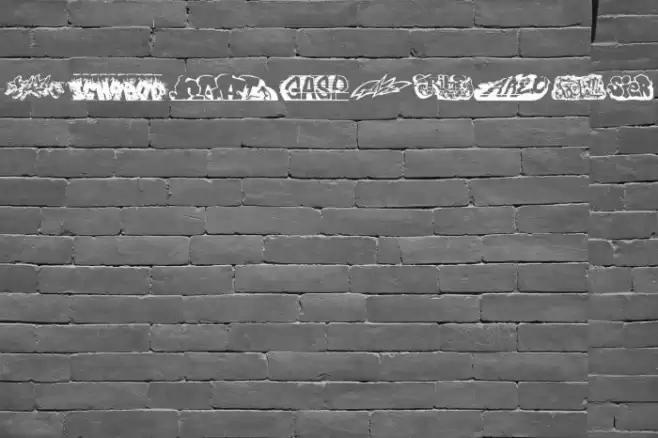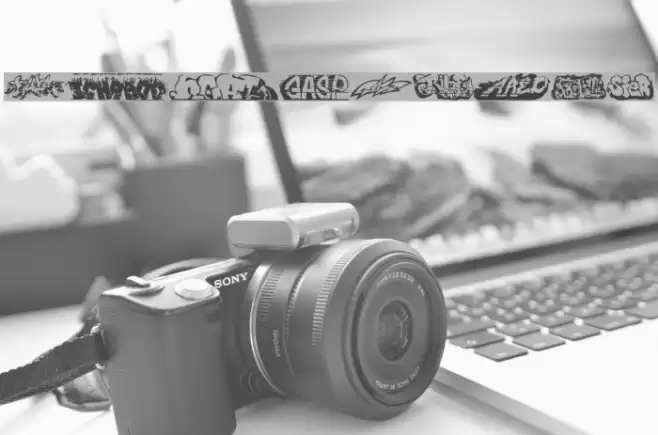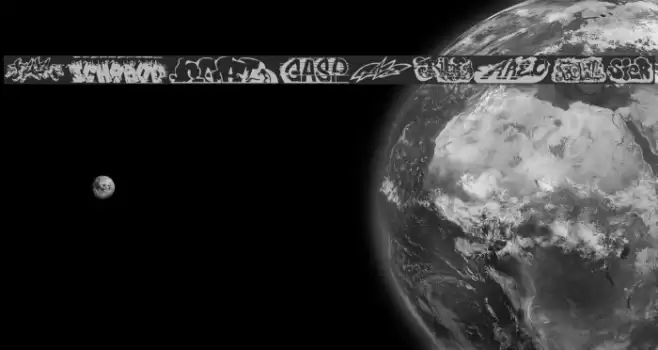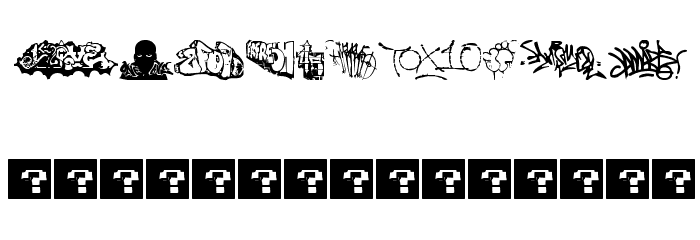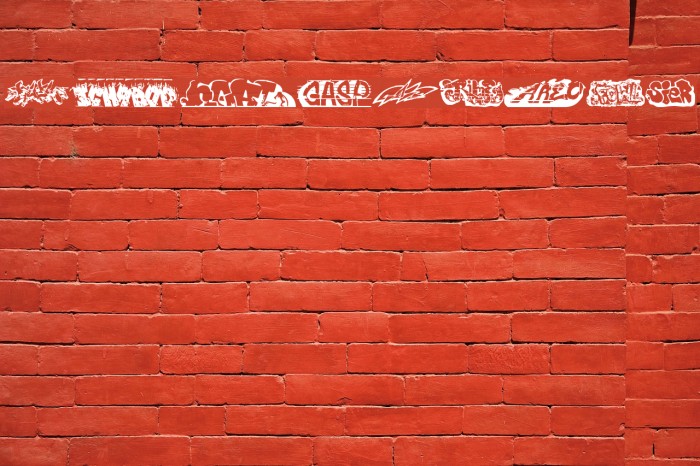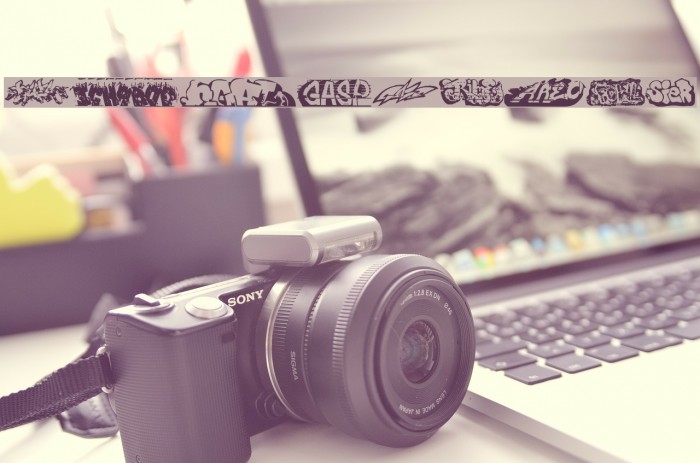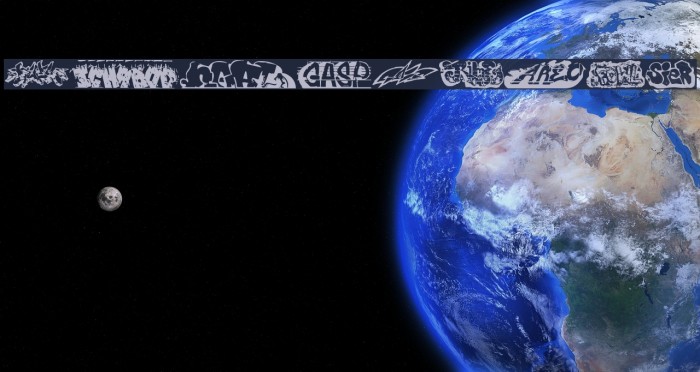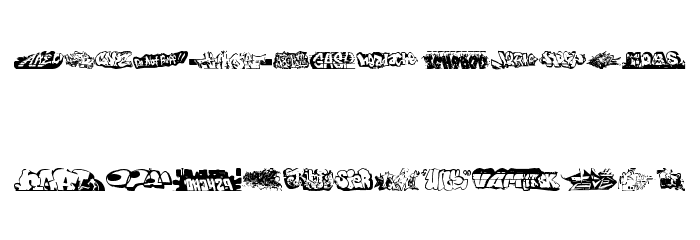
DingGrafs Font
This font is a highly stylized, graffiti-inspired typeface that captures the essence of urban street art. Each character is uniquely designed with intricate details, bold strokes, and dynamic shapes, creating a sense of movement and energy. The letters are interconnected with flowing lines and exaggerated curves, giving them a three-dimensional appearance. The font is visually striking, with a mix of sharp angles and smooth contours, making it ideal for projects that require a bold and edgy aesthetic. Its artistic flair and unconventional style make it stand out, perfect for creative and expressive designs.
A bold, graffiti-inspired font with dynamic shapes and intricate details from Uncategorized fonts.
- Proposed Projects: Ideal for street art murals, urban-themed posters, music album covers, and edgy branding projects.
- Character Spacing: Tight
- Overall Style: Urban, Edgy, Artistic